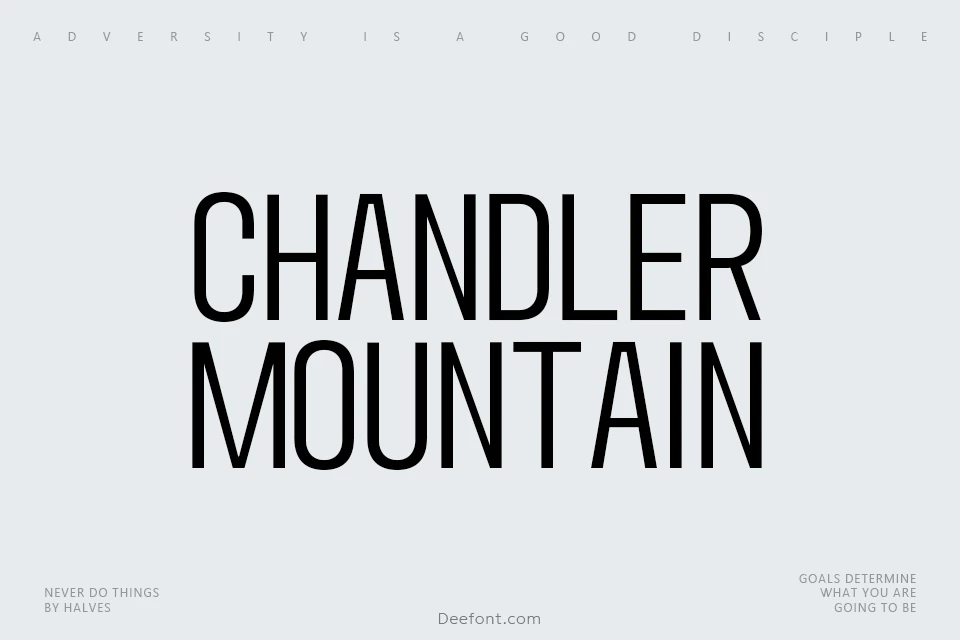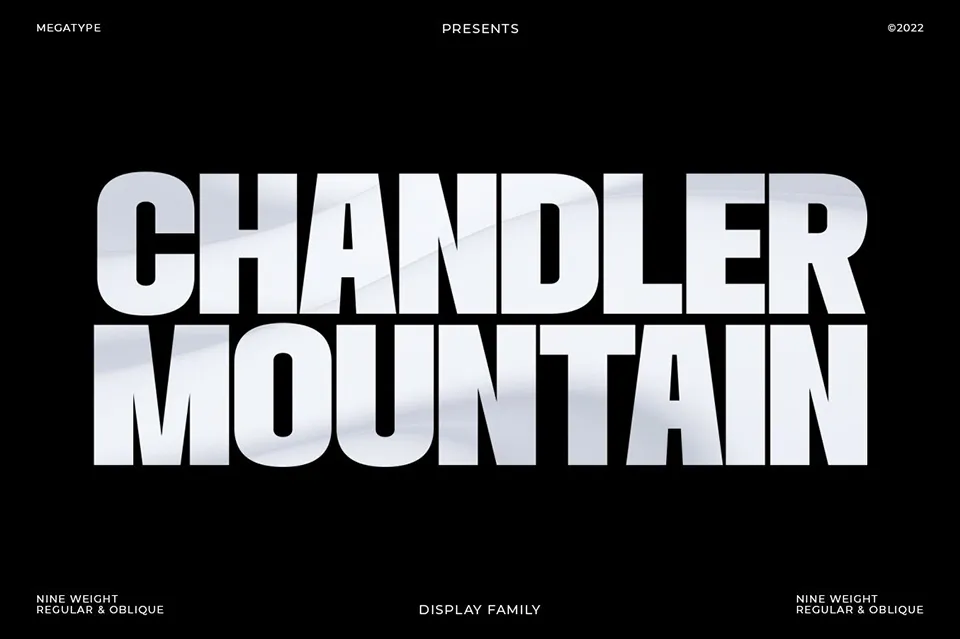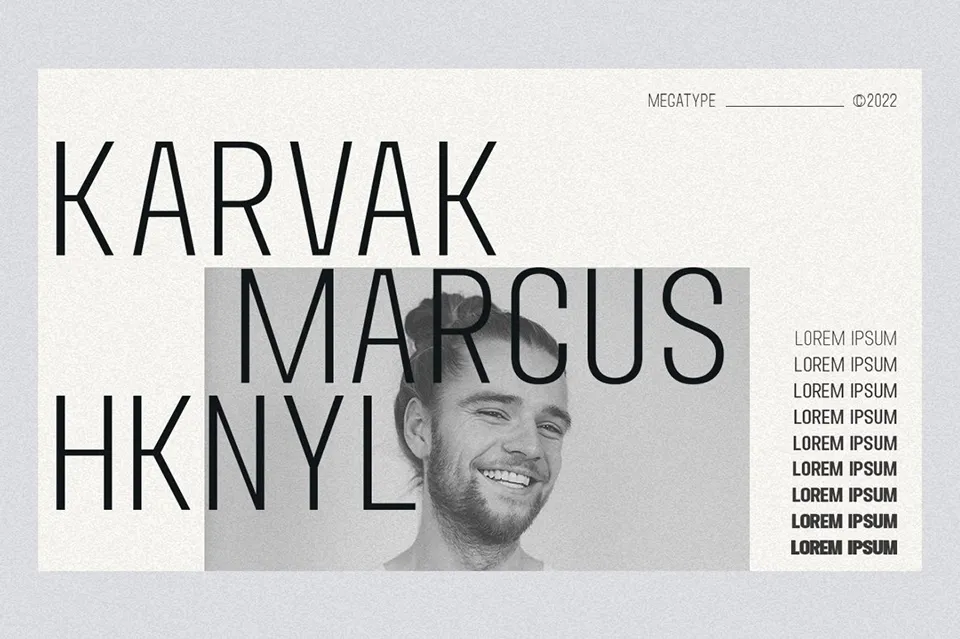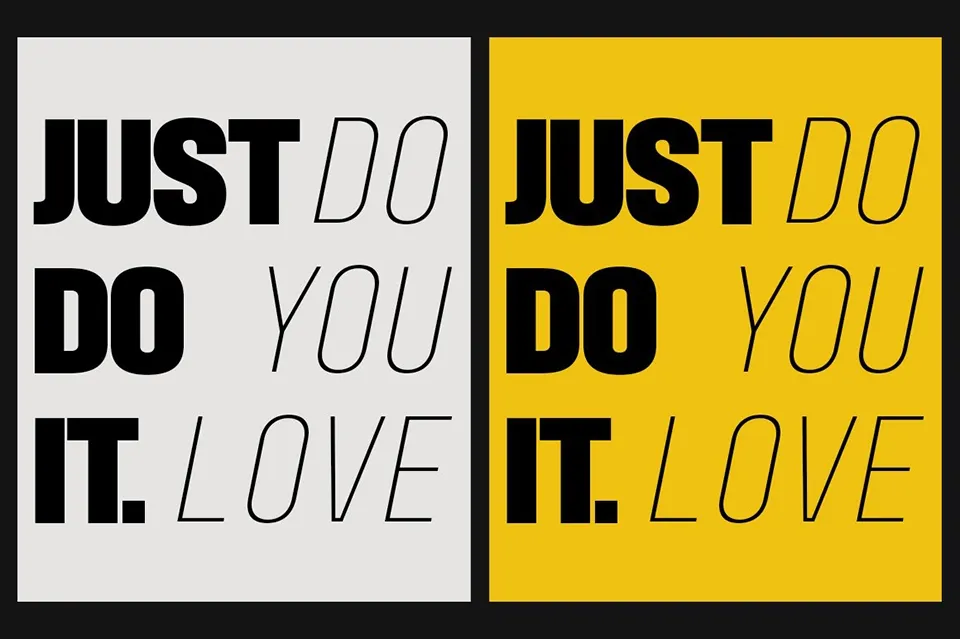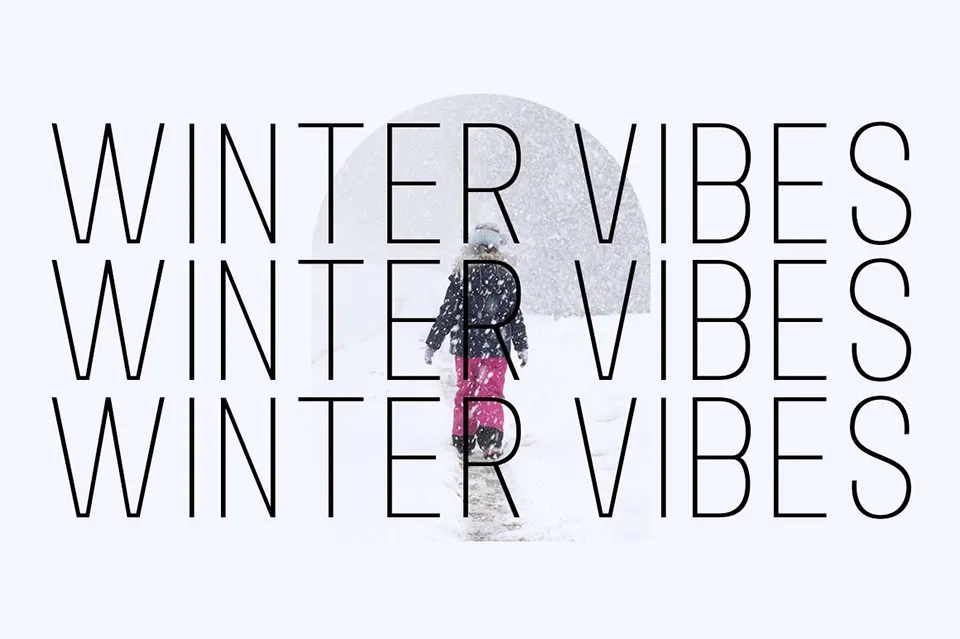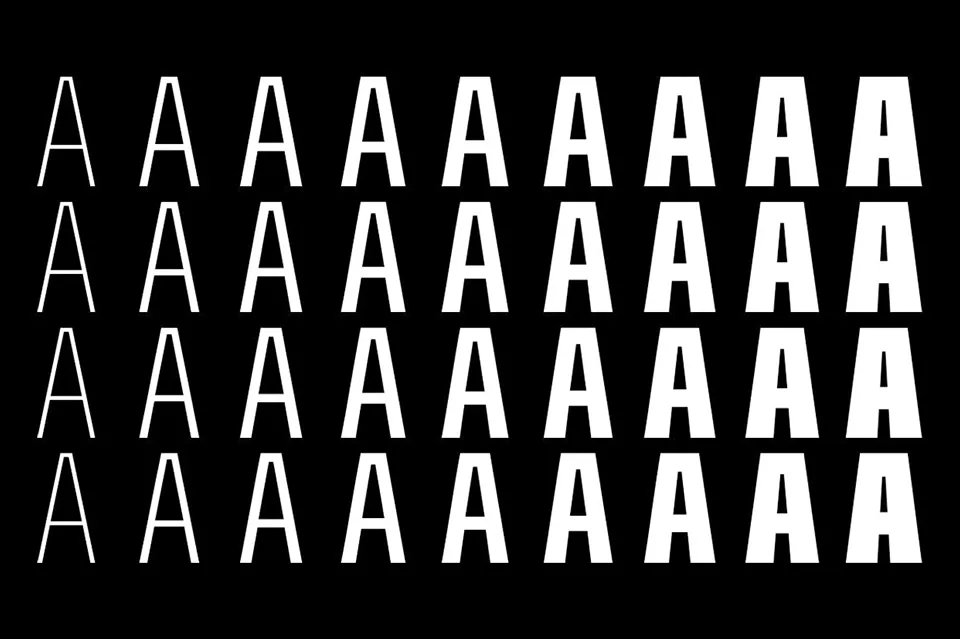
Chandler Mountain Font
Chandler Mountain Font is a bold and modern sans serif display font family characterized by sharp edges and a strong visual presence. Designed to exude strength, toughness, and optimal readability, it features nine weights from Thin to Black, each available in both Regular and Oblique styles. This versatile typeface is ideal for branding, logos, headlines, magazine layouts, posters, and more, making it a great choice for projects requiring impactful and contemporary typography.